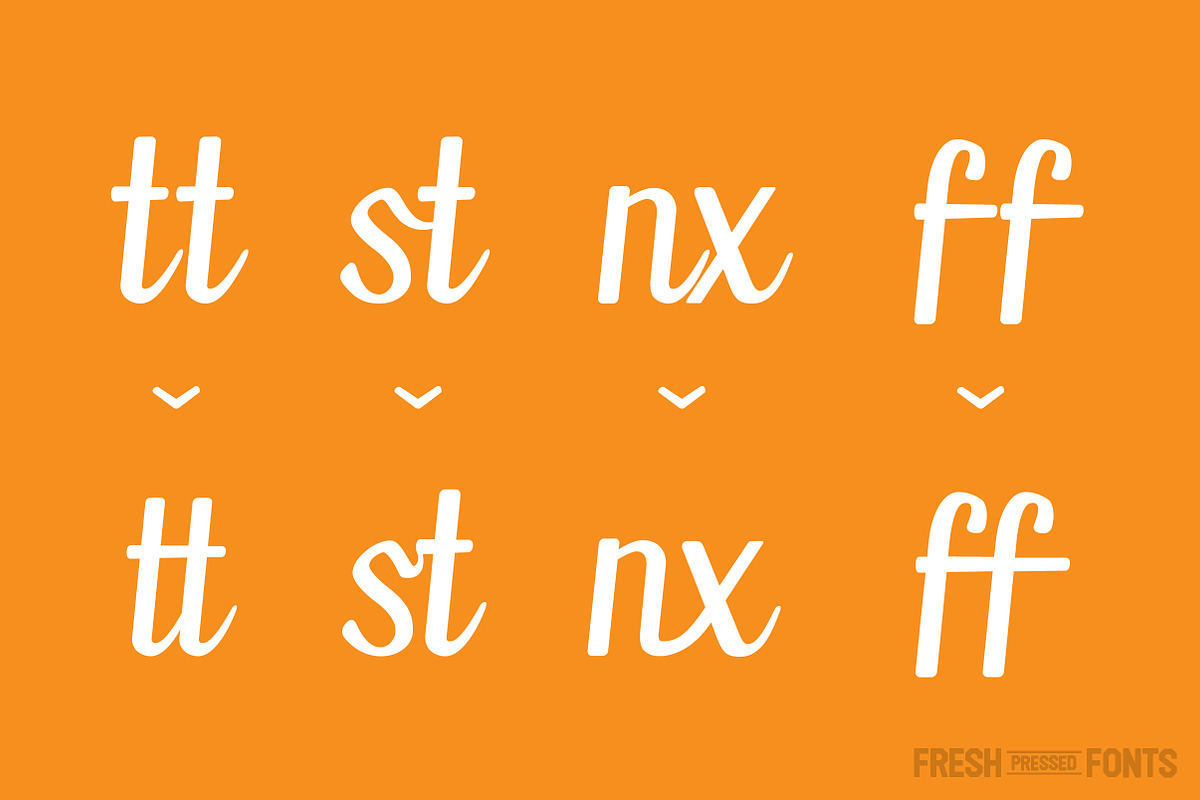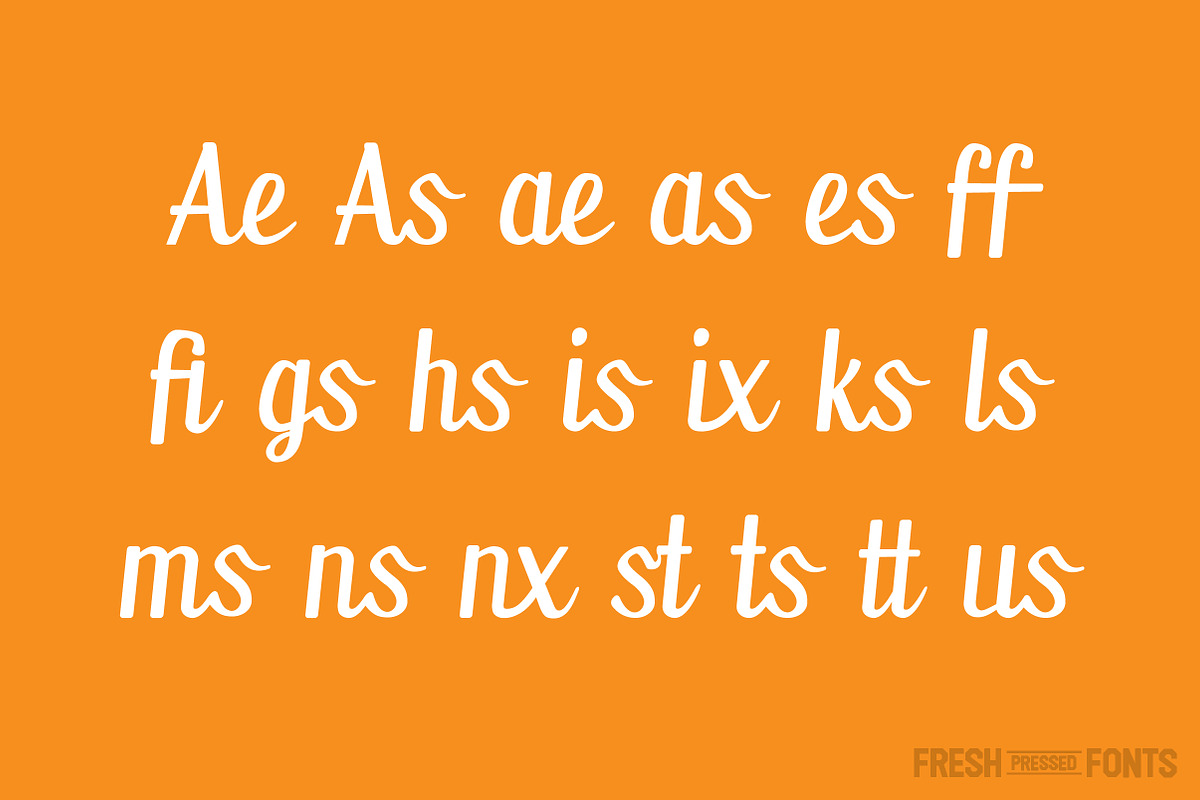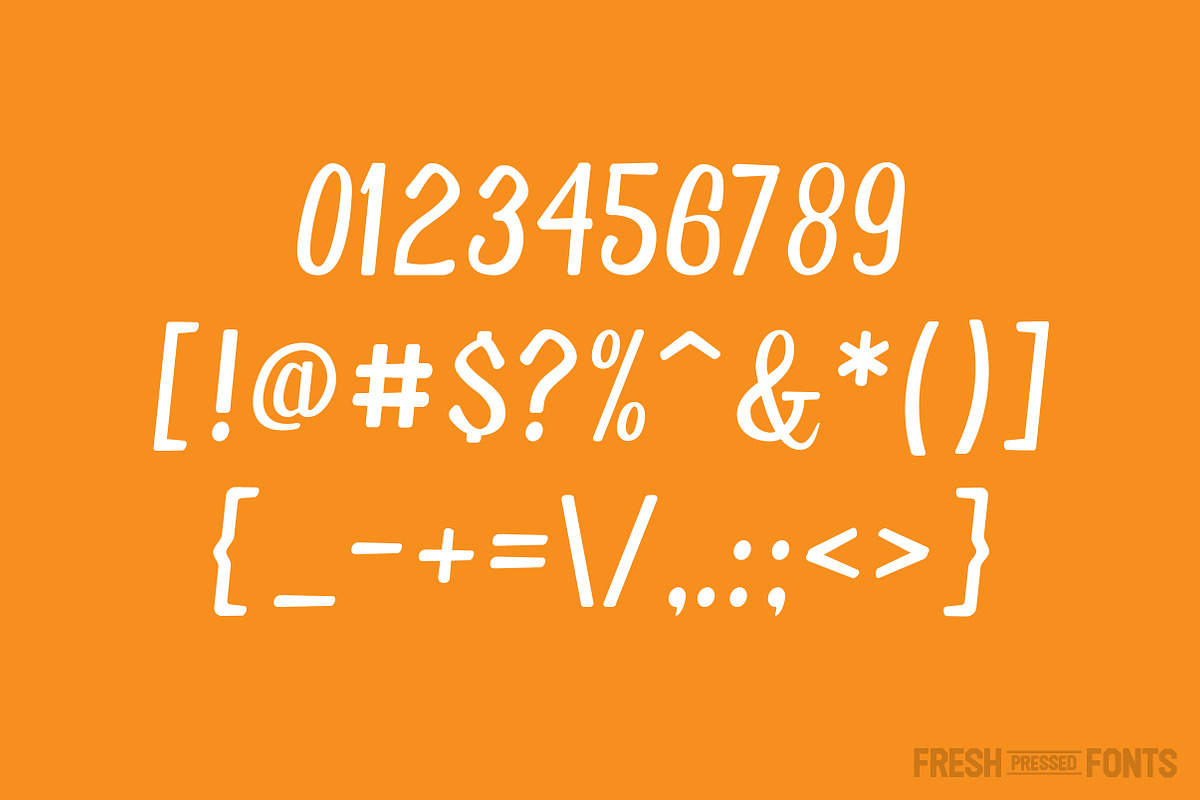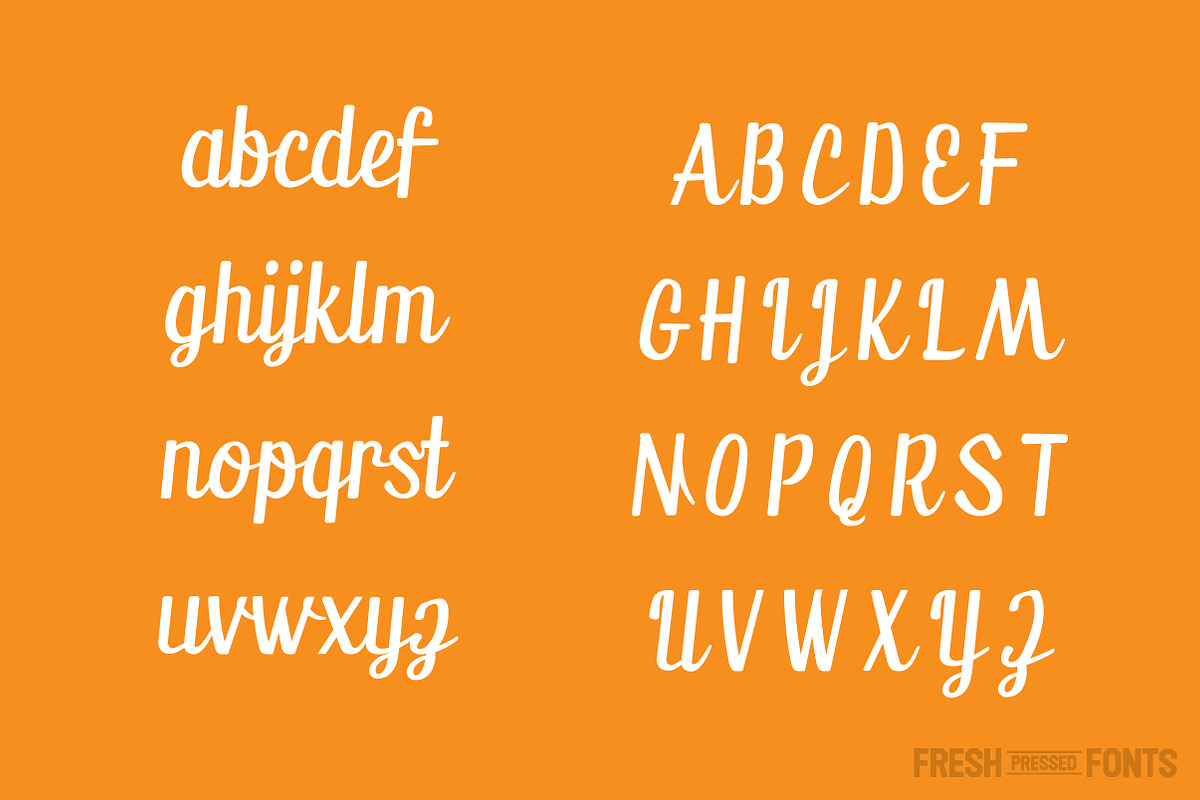
Seaside Font
Seaside Font by Fresh Pressed Fonts is a font selected for branding, posters, packaging, typography.
- There are over 30 ligatures included so you'll never be left without a proper connection.
- With over 200 glyphs total, it supports multiple languages and any punctuation and symbols you may need.
Why Seaside Font is worth a look
Seaside Font by Fresh Pressed Fonts fits naturally into Branding, posters, packaging, typography.